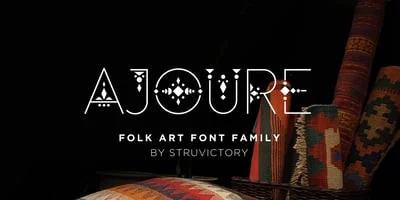
Ajoure Font
The Ajoure Font is perfect for luxury fashion magazines, high-end jewelry catalogs, elegant perfume advertisements, sophisticated boutique branding, premium lifestyle publications, upscale beauty salons, exclusive fashion week materials, and refined editorial layouts. This exquisite typeface works exceptionally well in applications where delicate craftsmanship and ornamental sophistication need to be emphasized, making it ideal for luxury brands that want to communicate intricate artistry and premium elegance through meticulously detailed typography.
What makes Ajoure Font exciting is its intricate openwork design and delicate filigree character that mirrors the precision of fine lacework and ornamental craftsmanship. The font's perforated beauty and decorative intricacy create an atmosphere of luxurious artistry and meticulous attention to detail, making it perfect for brands that want to showcase exceptional quality and sophisticated manufacturing excellence. Its ornamental presence ensures that every application feels like a work of art with premium craftsmanship appeal.
The Ajoure Font family typically includes light, regular, and ornamental weights, often featuring delicate cutwork variations, filigree alternates, and lacework-inspired symbols that enhance its decorative appeal. Many versions include jewelry motifs, ornamental flourishes, and specialized characters that provide designers with comprehensive tools for creating authentically luxurious design projects with genuine artisanal sophistication and decorative excellence.
For designers working on projects that require luxury craftsmanship and ornamental authenticity, Ajoure Font provides exceptional decorative elegance. Its ability to instantly communicate artisanal quality and luxury sophistication makes it an invaluable choice for high-end brands, luxury retailers, and any project requiring typography that embodies the delicate beauty of fine craftsmanship, the precision of ornamental artistry, and the exclusive appeal of luxury decorative design.